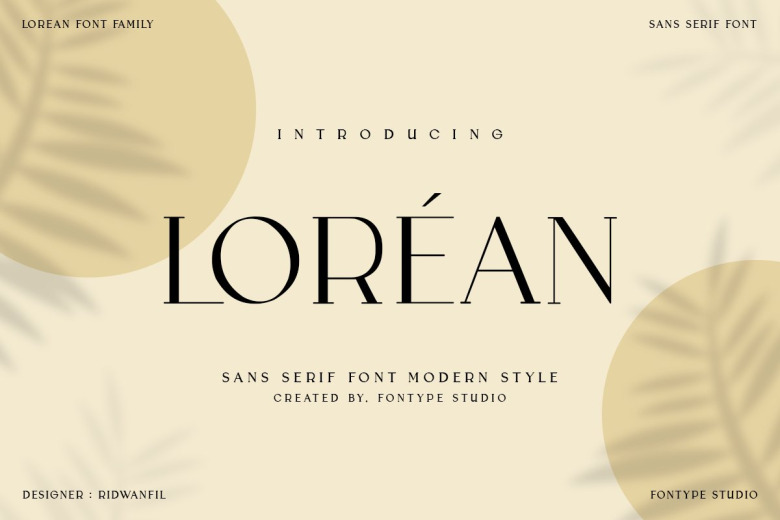
Lorean Font
Lorean is a serif font inspired by senior art and femininity, whereby the font that observes this is a very precious and special person. Lorean fonts are combined with other operations and high harmony to enable the font get feels to have a touch of elegance, simplicity, uniqueness and femininity.
This font is optimal in arrangement with shades of luxury, elegance, and the products or businesses that you would like to employ. It is this font that appears perfect for your business especially for logos and visual text and even adverts for your brand.
Lorean Serif Font